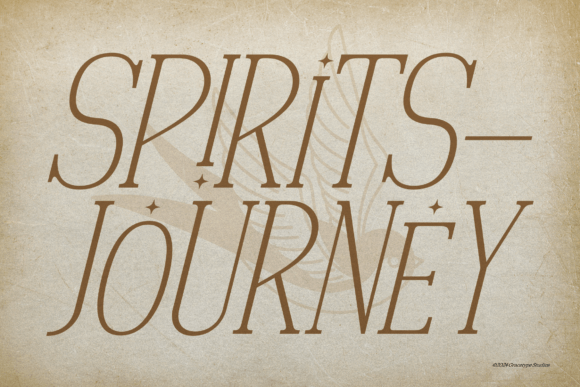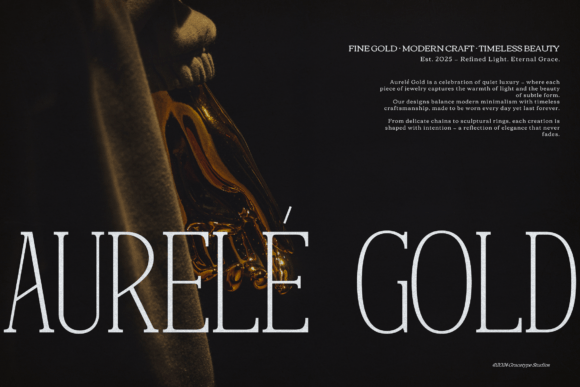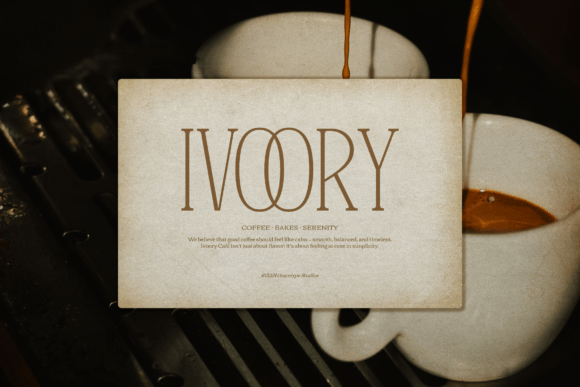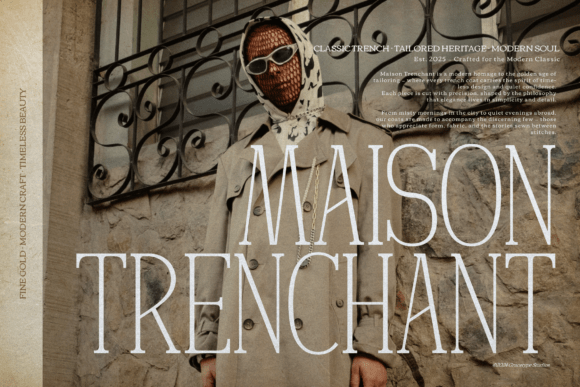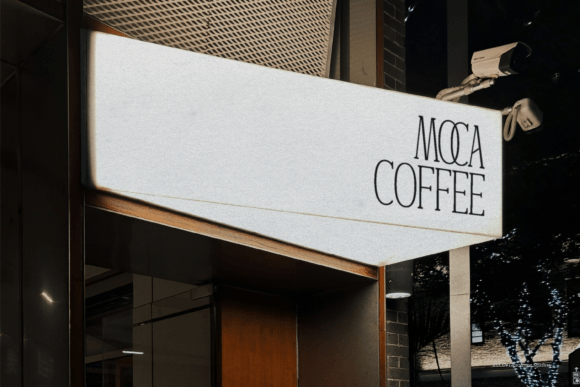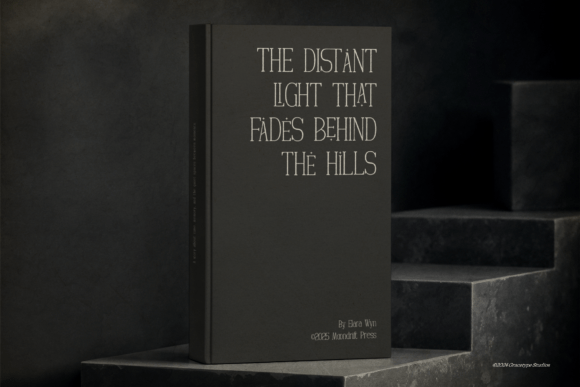
I still remember the frustration of working on a high-end branding project, searching for a font that exuded sophistication and elegance. My client wanted a design that would make their luxury brand stand out, but I was struggling to find the right fit. That’s when I stumbled upon Brátan Safioor, a modern display serif font that instantly caught my attention. In this article, I’ll share my experience with Brátan Safioor, its features, and how to make the most of this stunning font.
First Impressions: A Review of Brátan Safioor
• ✨ High contrast strokes that add a touch of sophistication to any design
• ✅ Sharp serifs that provide a clear and elegant look
• 💫 Artistic ligatures that bring a creative flair to your typography
• 🔥 Subtle flourishes and stylish alternates that give Brátan Safioor a refined yet distinctive personality
While Brátan Safioor is an exceptional font, there are a few things to keep in mind:
• ⚠️ Glyph overload: With so many glyphs and alternates available, it can be overwhelming to navigate. Take some time to explore the font’s features to get the most out of it.
The Story Behind Brátan Safioor
Brátan Safioor was crafted with the goal of blending classical elegance with modern flair. The designer aimed to create a font that would be both timeless and distinctive, perfect for upscale branding and creative projects. With its high contrast strokes, sharp serifs, and artistic ligatures, Brátan Safioor is a true masterpiece.
Q: What is Brátan Safioor?
Brátan Safioor is a modern display serif font characterized by high contrast strokes, sharp serifs, and artistic ligatures.
Q: What is Brátan Safioor best used for?
Brátan Safioor is perfect for upscale branding, editorial headlines, fashion lookbooks, luxury packaging, or any design that demands timeless beauty with a modern twist.
Q: Does Brátan Safioor support multilingual characters?
Yes, Brátan Safioor was thoughtfully crafted to support multilingual characters, making it versatile for global and artistic projects.